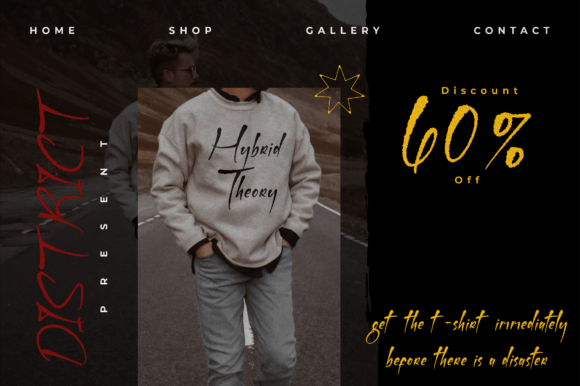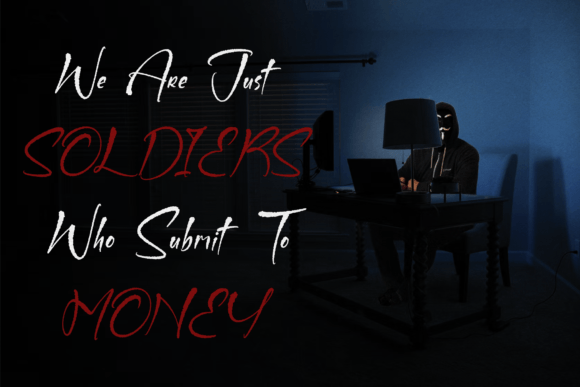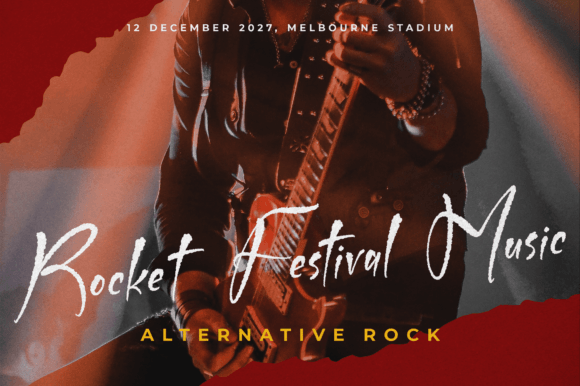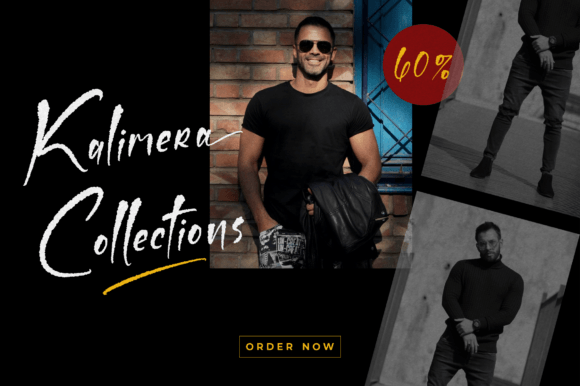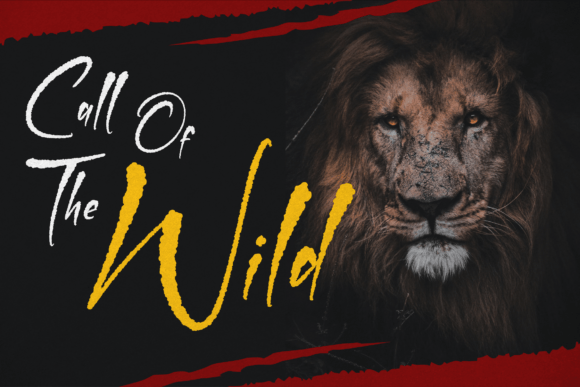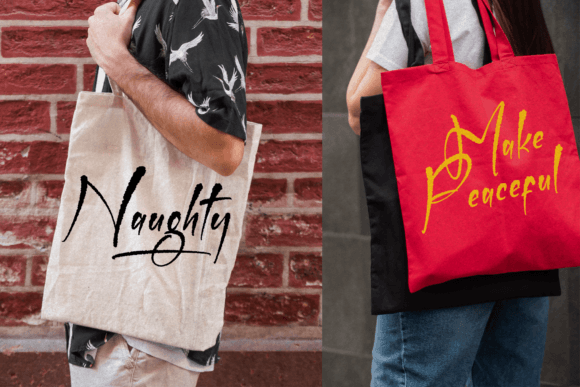
Unleashing Creativity with the Perfect Font
Have you ever sat in front of your computer, staring at a blank screen, waiting for the perfect idea to strike? The cursor blinks, and your mind goes blank. Suddenly, a spark of creativity hits, and you start brainstorming. This is where the magic happens, and the right font can make all the difference. For designers and creatives, finding the perfect font can be a game-changer.
That’s where the lovely Bandits Grush Font comes in – a timeless handwritten font that adds a touch of elegance to any design. With its unique and beautiful touch, it’s the perfect choice for creating eye-catching logos, branding, and quotes. Whether you’re a seasoned designer or just starting out, Bandits Grush Font is a valuable addition to your toolkit, guaranteed to bring your designs to life.
Bandits Grush Font Key Features
- Font Family: Bandits Grush
- Character Set: Supports a wide range of languages, including Latin, Cyrillic, and Greek alphabets
- Unique Characteristics: Bandits Grush features a unique, hand-drawn style with bold lines and geometric shapes, making it ideal for headlines and titles
Review of Bandits Grush Font
As a designer, I’m always on the lookout for fonts that can elevate a project to the next level. Bandits Grush Font caught my eye with its unique blend of rugged and elegant features. Here’s my honest review:
- Unique character set: Bandits Grush Font has a distinctive set of characters that add a touch of personality to any design.
- Great for display use: This font is perfect for headlines, titles, and other display text where you want to make a statement.
- Good legibility: Despite its bold features, Bandits Grush Font is surprisingly easy to read, even at smaller font sizes.
- Limited language support: Bandits Grush Font may not support all languages, which could be a problem for multilingual projects.
- May not be suitable for body text: While the font is great for display use, it may not be the best choice for large blocks of body text due to its bold features.
- Not suitable for small sizes: Bandits Grush Font can become difficult to read at very small font sizes, so be sure to test it at different sizes before using it.
Overall, I think Bandits Grush Font is a great addition to any designer’s toolkit. While it may have some limitations, its unique features and good legibility make it a great choice for display use and creative projects.
Tips for Getting the Most Out of Bandits Grush Font
Use Bandits Grush Font for titles, headings, and emphasis to add a touch of elegance and sophistication to your designs.
Combine Bandits Grush Font with other fonts to create a unique and eye-catching typography.
Experiment with different font sizes and colors to create visual interest and hierarchy in your designs.
Bandits Grush Font is ideal for:
Brand logos and identity
Marketing materials and advertising
Editorial and publishing projects
Alternatives to Bandits Grush Font
The Great Vibes Font is a modern, elegant script font. It is suitable for use in titles, headings, and other design elements where a touch of sophistication is needed. It is similar to Bandits Grush Font in its flowing lines and cursive feel, but has a more refined and polished appearance.
Comparison to Bandits Grush Font: While Bandits Grush Font has a more rustic, distressed feel, Great Vibes Font is sleeker and more refined. Great Vibes Font is ideal for designs that require a sense of luxury and high-end quality.
The Alex Brush Font is a handwritten script font with a personal, intimate feel. It is suitable for use in titles, headings, and other design elements where a touch of warmth and personality is needed. It is similar to Bandits Grush Font in its flowing lines and cursive feel, but has a more organic and natural appearance.